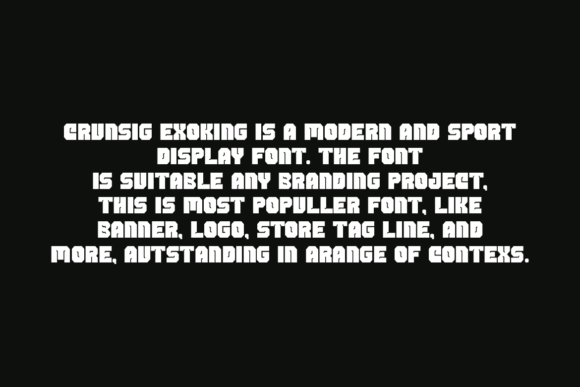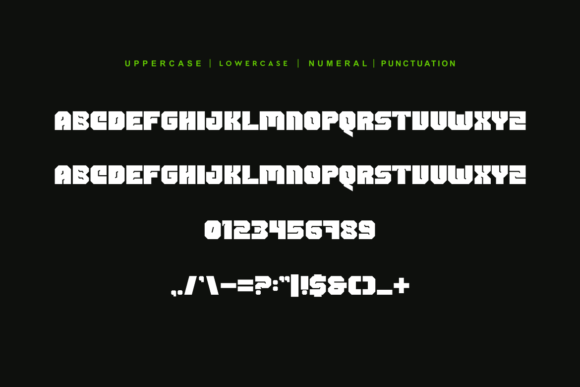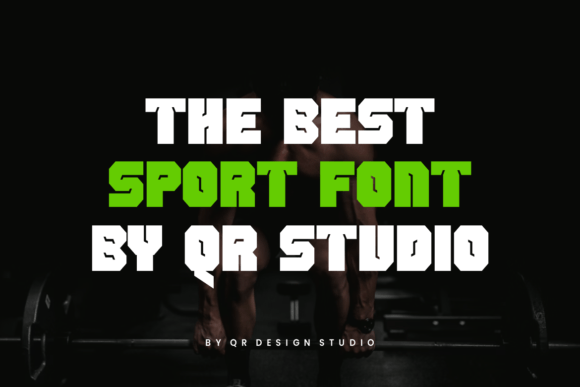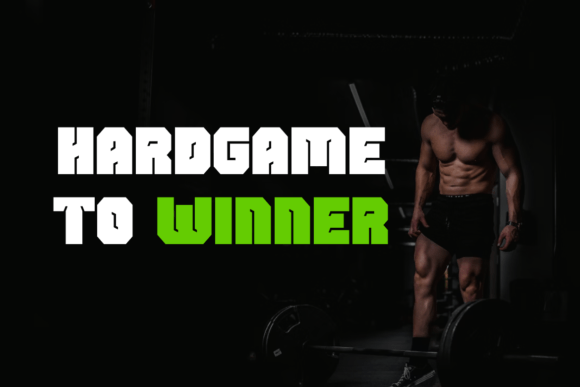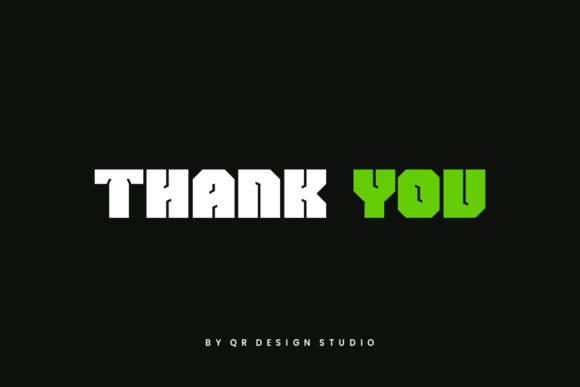
Unleash the Magic of Crunsig Exoking Font: A Modern yet Whimsical Display Font
Are you tired of using the same old fonts in your designs? Look no further! Crunsig Exoking Font is here to revolutionize the way you create. This incredibly cool and unique display font is about to take your designs to the next level with its modern yet whimsical style. Get ready to immerse your creations into a magical world like never before!
What Makes Crunsig Exoking Font So Special?
Crunsig Exoking Font boasts a distinctive and eye-catching design that sets it apart from other fonts. Its modern and whimsical style makes it perfect for a wide range of design projects, from branding and advertising to packaging and digital media. Whether you’re a designer, craftsperson, or simply a DIY enthusiast, this font is sure to spark your creativity and inspire your next project.
Key Features of Crunsig Exoking Font
- Unique and Quirky Design: Crunsig Exoking Font features a one-of-a-kind design that’s sure to grab attention. Its quirky and playful style adds a touch of magic to any design.
- Modern and Fresh Look: This font boasts a modern and fresh look that’s perfect for contemporary designs. Its clean lines and elegant curves make it suitable for a wide range of applications.
- Highly Versatile: Crunsig Exoking Font is incredibly versatile and can be used for various design projects, from headings and titles to logos and branding.
- Easily Readable: Despite its unique design, Crunsig Exoking Font is surprisingly easy to read, making it perfect for body text and captions.
Use Cases for Crunsig Exoking Font
So, how can you use Crunsig Exoking Font in your designs? The possibilities are endless! Here are a few ideas to get you started:
- Branding and Logo Design: Create a memorable brand identity with Crunsig Exoking Font. Its unique design makes it perfect for logos, business cards, and letterheads.
- Digital Media: Add a touch of magic to your social media graphics, blog posts, and website headers with this enchanting font.
- Packaging Design: Make your product packaging stand out with Crunsig Exoking Font. Its quirky design is sure to grab attention on store shelves.
- Advertising and Marketing: Use Crunsig Exoking Font to create eye-catching ads, flyers, and brochures that will leave a lasting impression on your audience.
Tips for Using Crunsig Exoking Font
To get the most out of Crunsig Exoking Font, here are a few tips to keep in mind:
- Experiment with Font Sizes: Crunsig Exoking Font looks great in various font sizes. Experiment with different sizes to find the perfect fit for your design.
- Pair it with Other Fonts: Combine Crunsig Exoking Font with other fonts to create a unique and visually appealing design.
- Use it for Headings and Titles: This font is perfect for headings and titles. Use it to add a touch of magic to your design and draw attention to important information.
In conclusion, Crunsig Exoking Font is an incredibly cool and unique display font that’s sure to take your designs to the next level. Its modern yet whimsical style makes it perfect for a wide range of design projects. With its highly versatile design, ease of use, and endless possibilities, Crunsig Exoking Font is a must-have for designers, craftspersons, and DIY enthusiasts alike. So why wait? Unleash the magic of Crunsig Exoking Font and transform your designs into a magical world of wonder and enchantment!